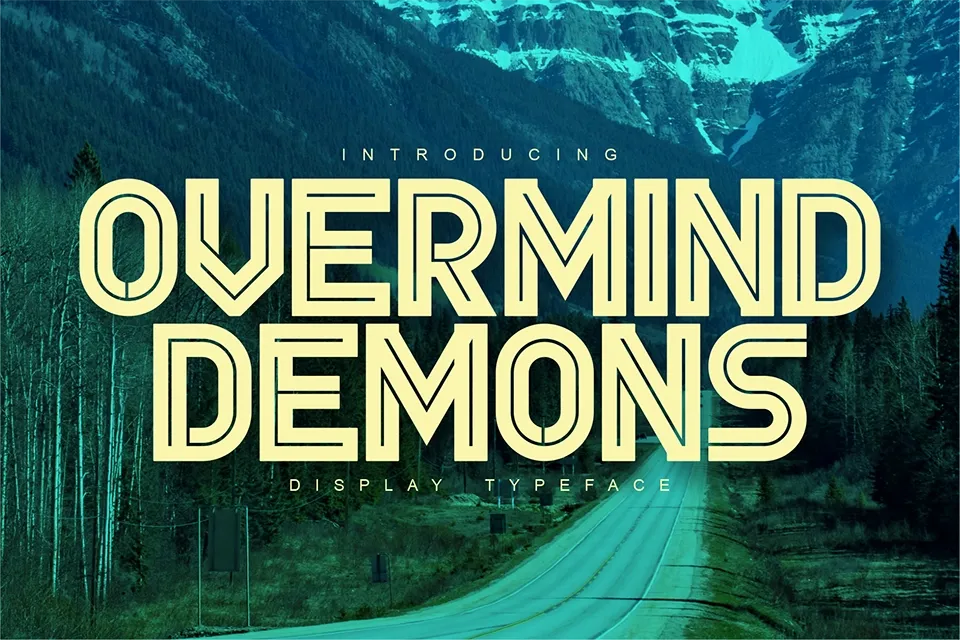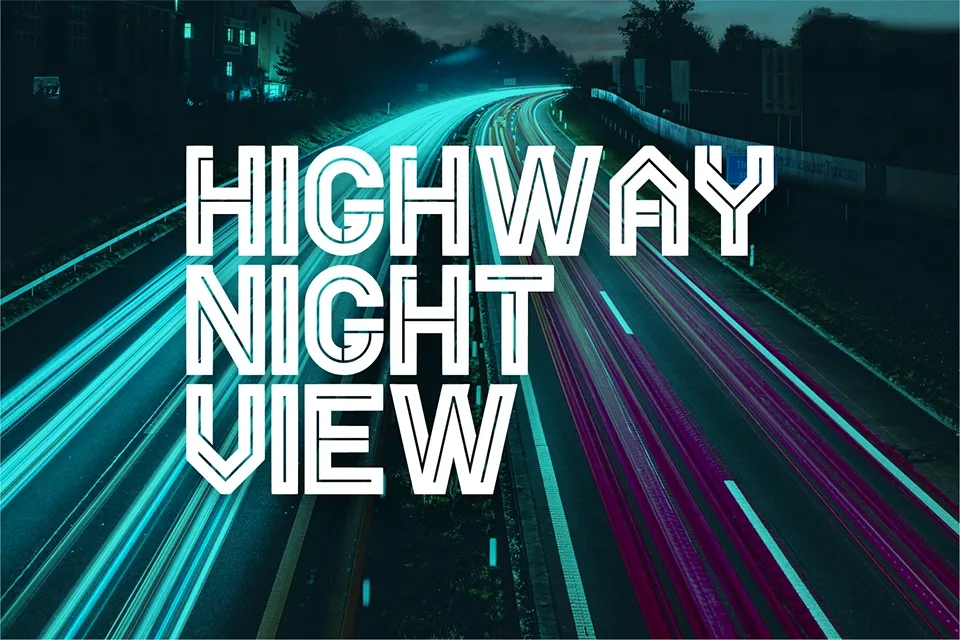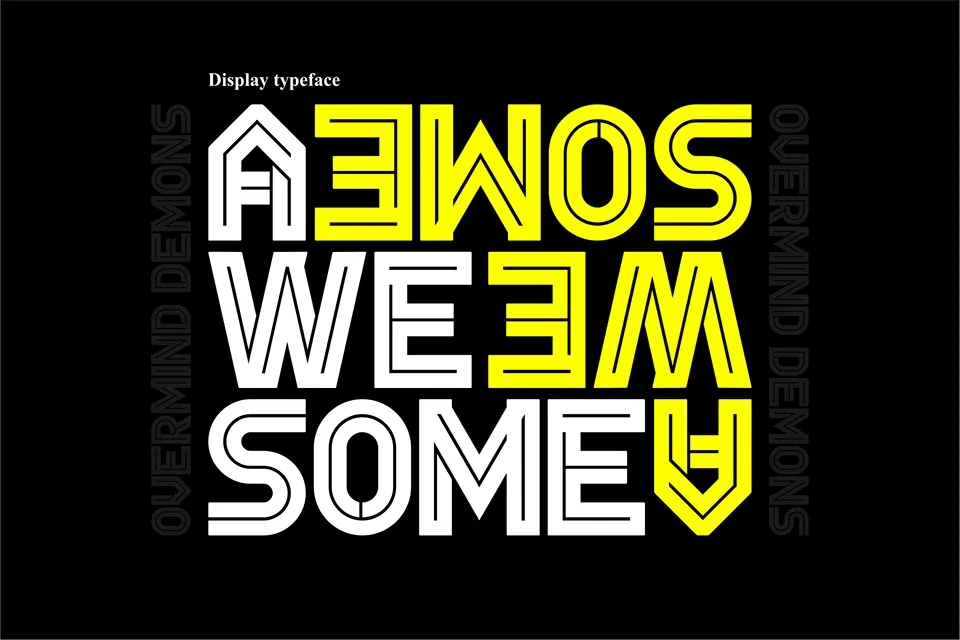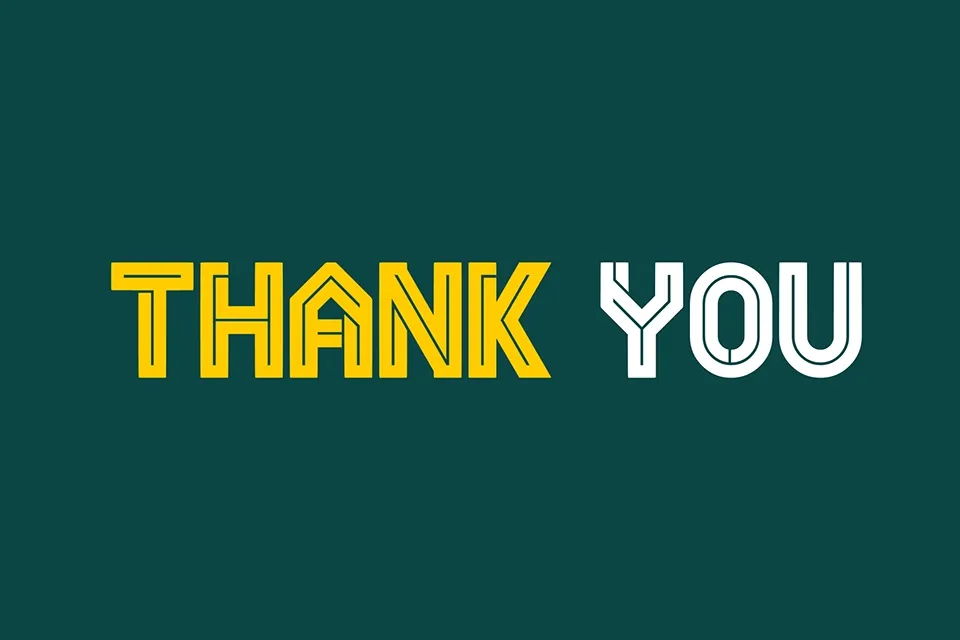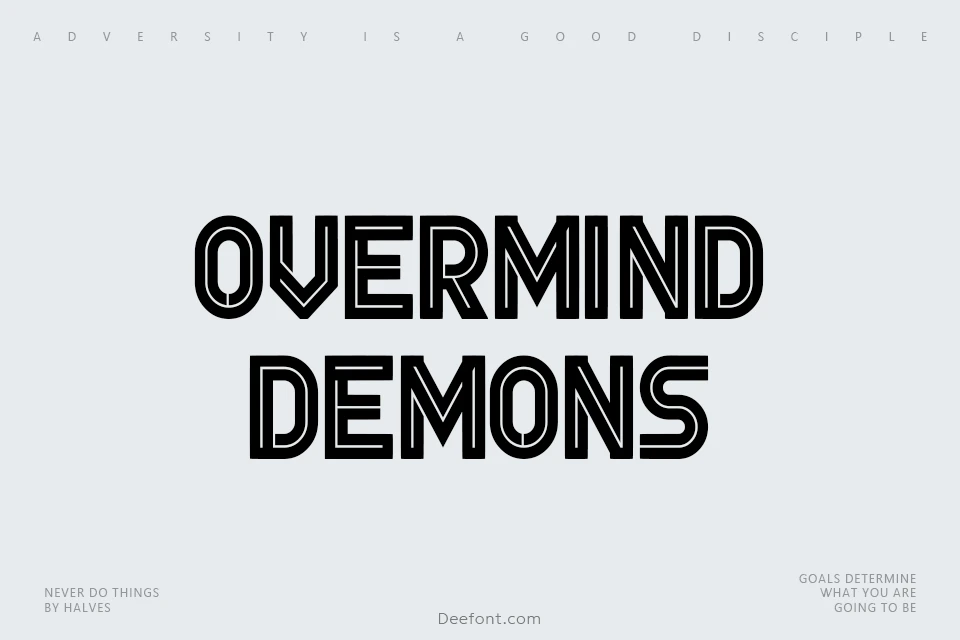
Overmind Demons Font
Overmind Demons Font is a bold display typeface designed to make a strong impact. With its sporty, modern, and adventurous edge, this font is perfect for titles, logos, posters, and any creative project that needs an extra punch. Featuring a full set of capital letters, numbers, and punctuation, Overmind Demons Font is ideal for shows, sporting events, cafes, travel materials, and more.